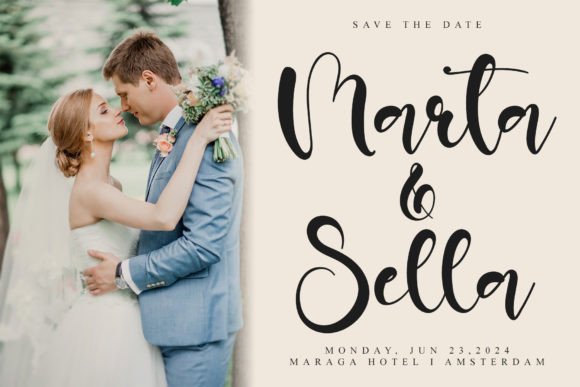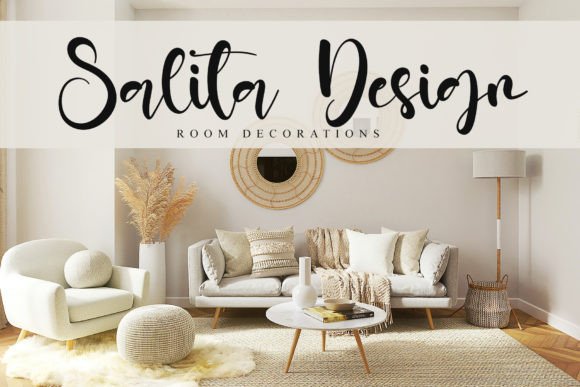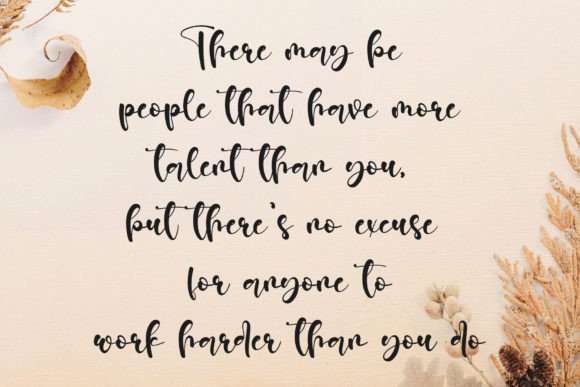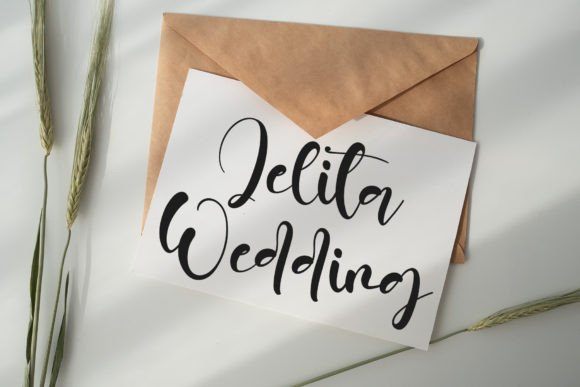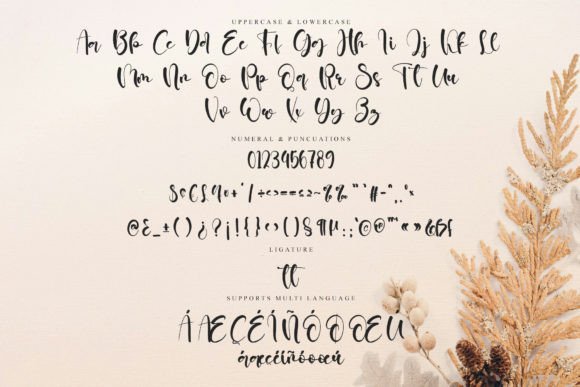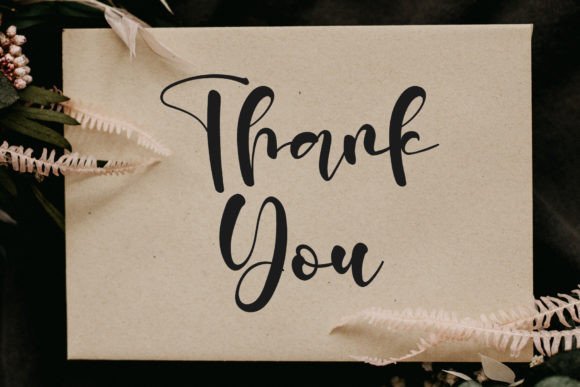
Introduction to Gladies Wedding Font
Gladies Wedding is a stylish handwritten font with a contemporary atmosphere and impeccable form, inspired by timeless classic calligraphy.
Balanced and varied, this font was designed to enhance the beauty of your projects .
Key Features of Gladies Wedding Font